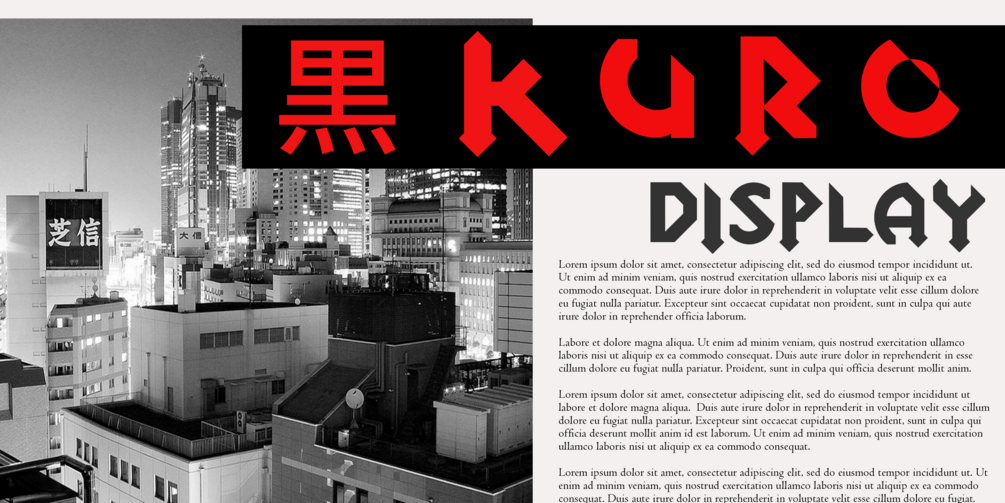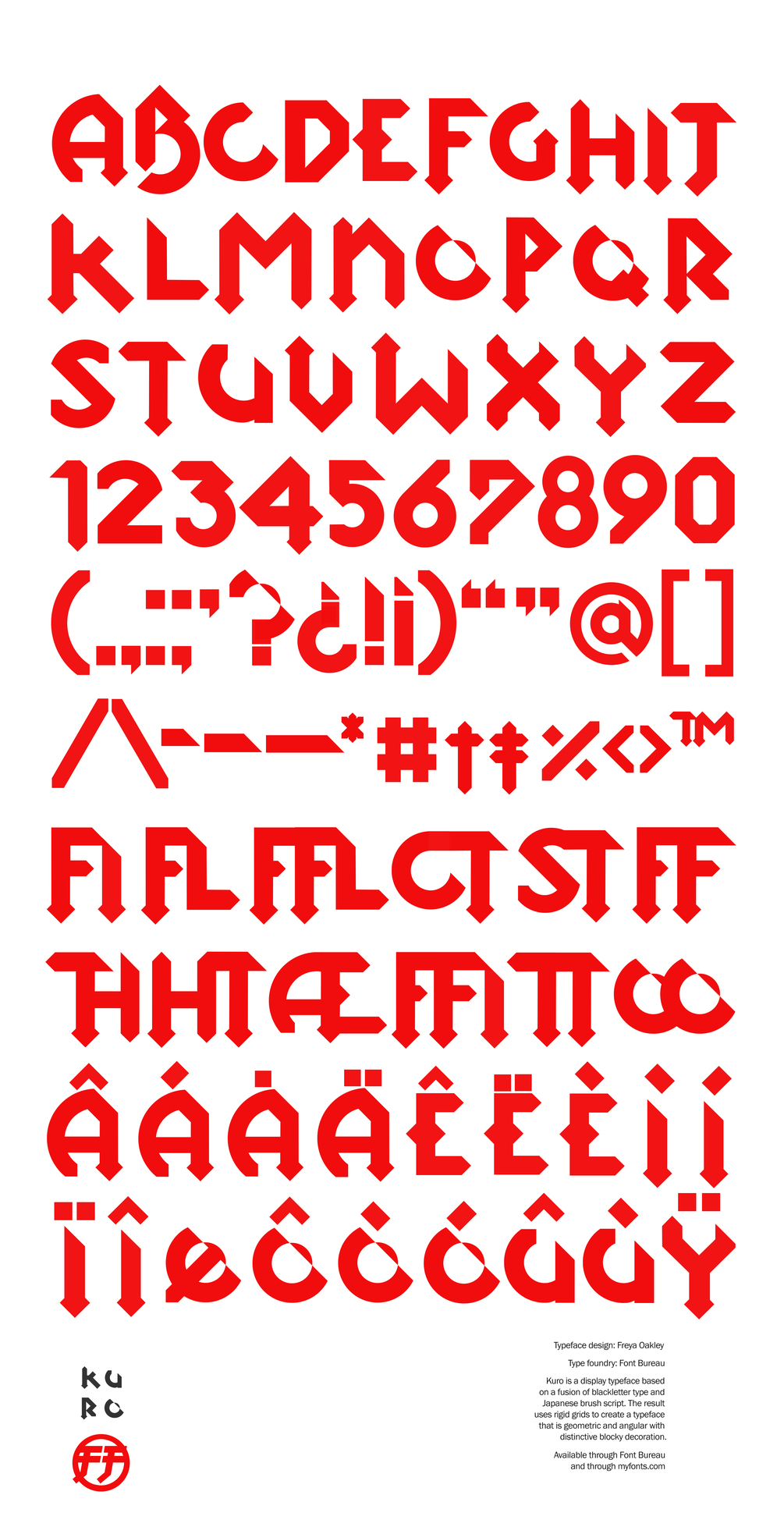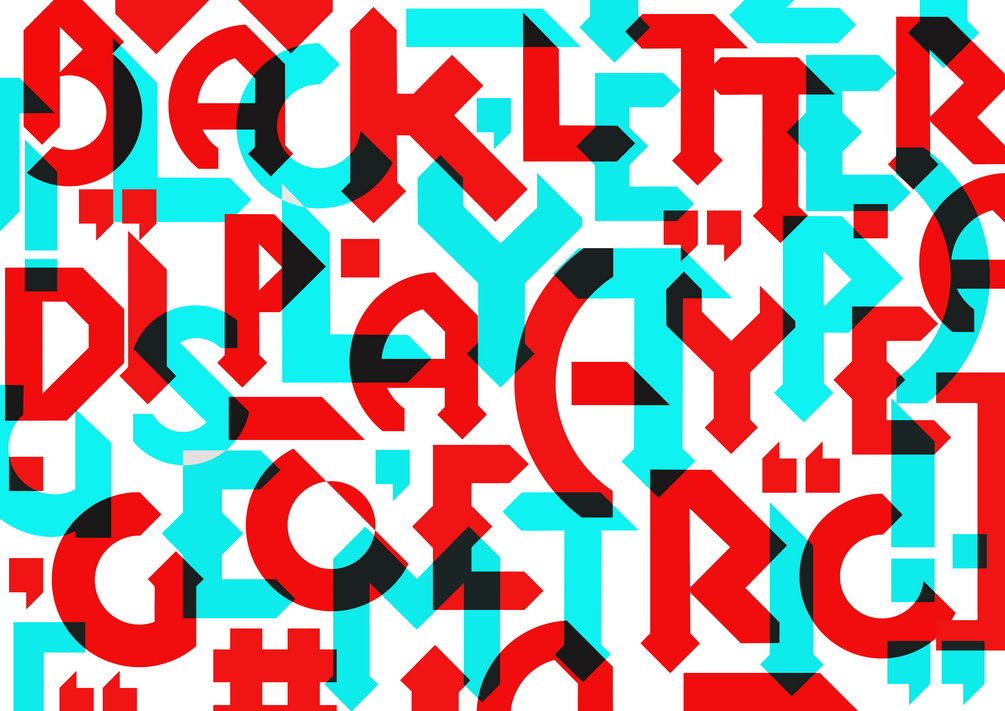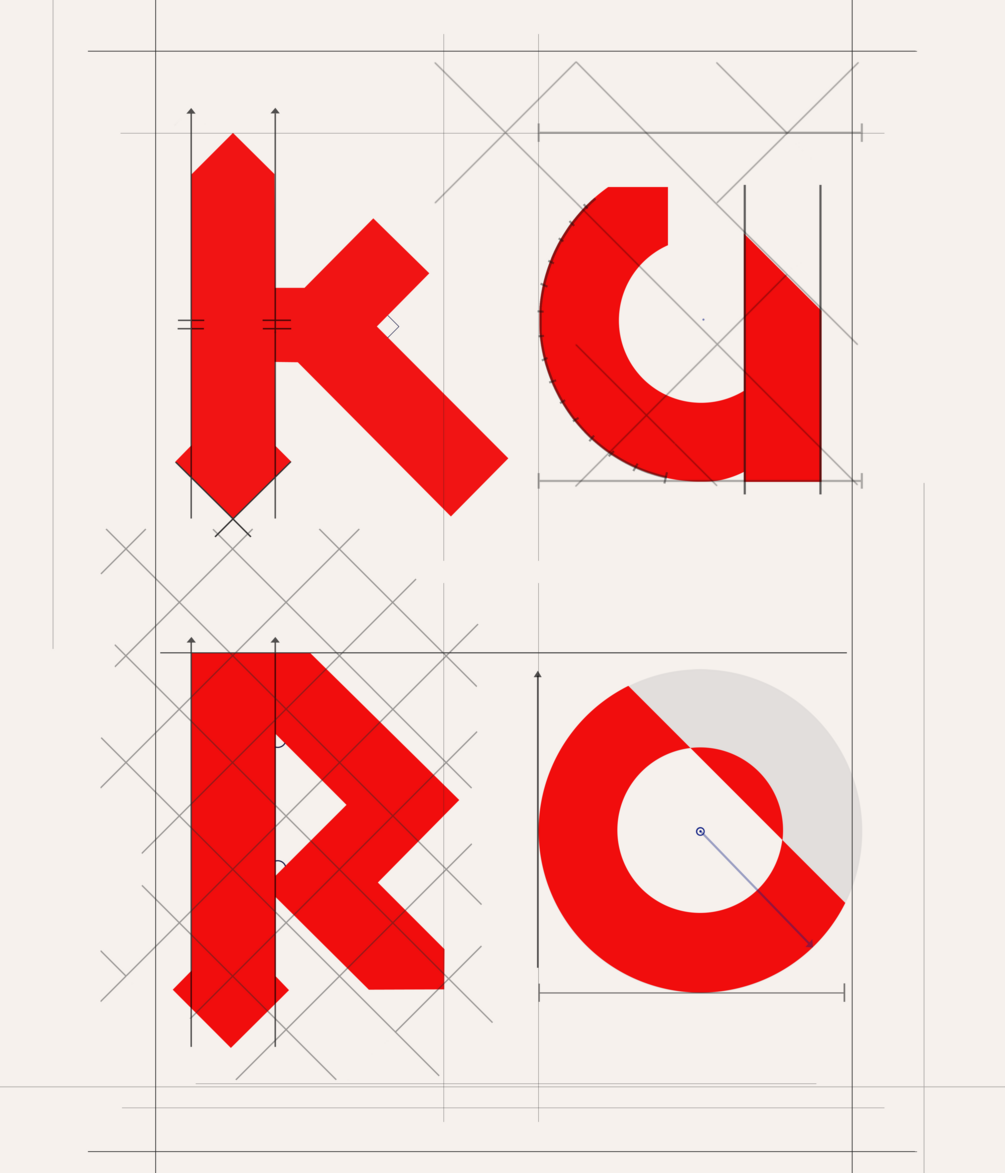
Kuro
Kuro is a display typeface based on a fusion of blackletter type and Japanese brush script. The result uses rigid grids to create a typeface that is geometric and angular with a distinctive cut off and blocky decoration.
Meaning black or dark in Japanese, the name Kuro (黒) refers to both the blackletter inspiration and the solid nature of the letters